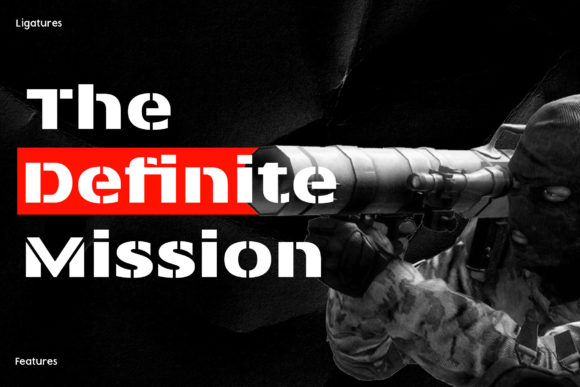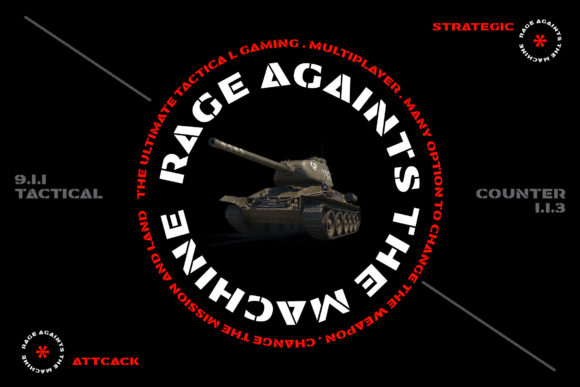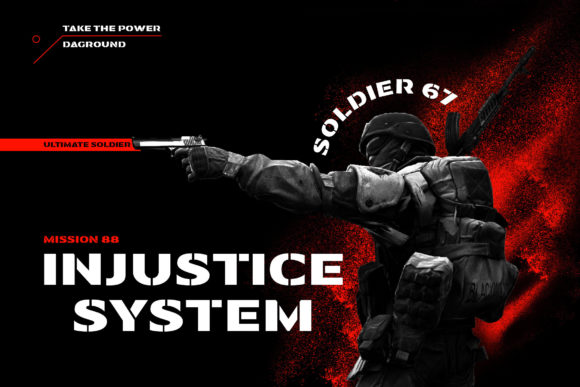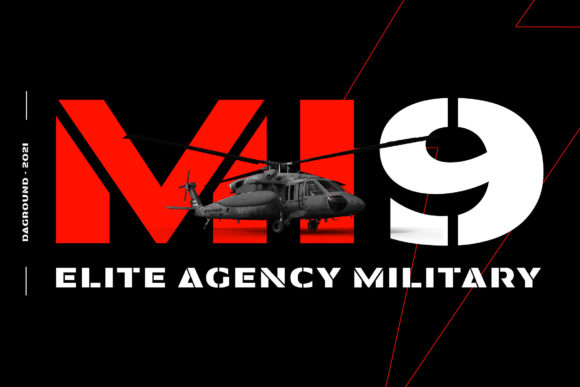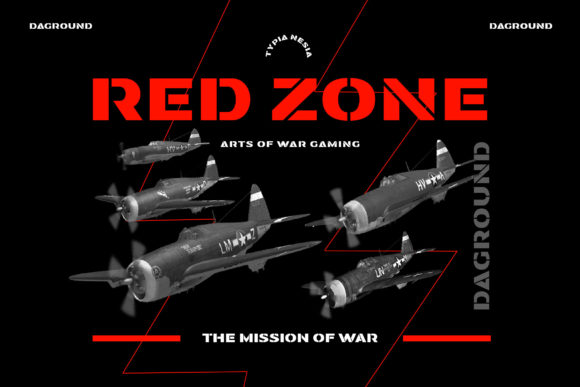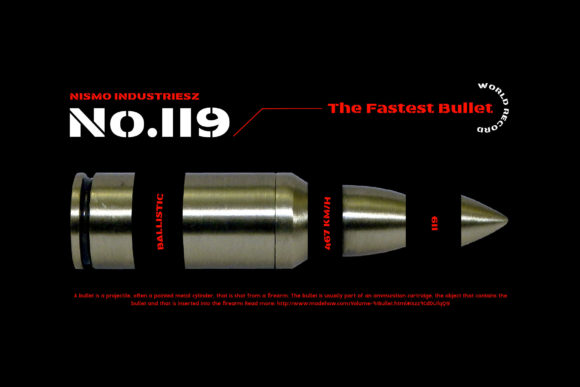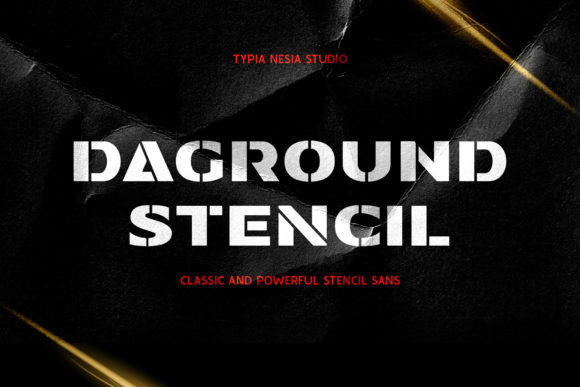
Discover the Ultimate Display Font: Daground
Are you on the hunt for a font that can elevate your designs to the next level? Look no further than Daground, a cool display font that’s perfect for a wide range of projects. From logo branding and editorial design to sport design, 80s retro design, and more, Daground is the ultimate addition to your font collection.
What Makes Daground So Special?
Daground is a versatile font that’s designed to make a statement. Its unique blend of modern and retro elements makes it perfect for designers who want to add a touch of nostalgia to their work. With Daground, you can create stunning designs that are sure to grab attention and leave a lasting impression.
So, what can you use Daground for? The possibilities are endless! Here are just a few ideas to get you started:
- Logo Branding: Use Daground to create a bold and eye-catching logo that’s sure to represent your brand.
- Editorial Design: Add a touch of sophistication to your editorial designs with Daground’s elegant and refined lines.
- Stationery Design: Create beautiful stationery designs that are sure to impress with Daground’s unique style.
- Sport Design: Use Daground to create bold and dynamic sport designs that are sure to get your audience pumped up.
- 80s Retro Design: Add a touch of nostalgia to your designs with Daground’s retro-inspired lines.
- E-Sport Game Industry: Use Daground to create bold and eye-catching designs that are sure to stand out in the e-sport game industry.
- Sports Racing: Create stunning sports racing designs that are sure to get your audience revved up.
- Supercar Brands: Use Daground to create sleek and sophisticated designs that are sure to represent your supercar brand.
- Music Posters: Add a touch of style to your music posters with Daground’s unique and eye-catching lines.
- Blog Design: Use Daground to create a bold and eye-catching blog design that’s sure to grab attention.
- Modern Advertising Design: Create stunning modern advertising designs that are sure to get your message across.
- Card Invitations: Use Daground to create beautiful and elegant card invitations that are sure to impress.
- Art Quotes: Add a touch of style to your art quotes with Daground’s unique and eye-catching lines.
- Home Decor: Use Daground to create beautiful and elegant home decor designs that are sure to add a touch of sophistication to any room.
- Book/Cover Titles: Create stunning book and cover titles that are sure to grab attention.
- Special Events: Use Daground to create bold and eye-catching designs for special events that are sure to leave a lasting impression.
Why Choose Daground?
So, why should you choose Daground for your next project? Here are just a few reasons:
- Unique Style: Daground has a unique style that’s sure to make your designs stand out.
- Versatility: Daground is perfect for a wide range of projects, from logo branding to sport design and more.
- Elegant Lines: Daground’s elegant lines are sure to add a touch of sophistication to any design.
- Easy to Use: Daground is easy to use and comes with a simple and intuitive design.
In conclusion, Daground is a cool display font that’s perfect for designers who want to add a touch of style and sophistication to their work. With its unique blend of modern and retro elements, Daground is sure to make your designs stand out. Whether you’re working on a logo branding project, editorial design, sport design, or more, Daground is the ultimate addition to your font collection.
Get Ready to Take Your Designs to the Next Level
So, what are you waiting for? Get ready to take your designs to the next level with Daground. Add it to your most creative ideas and notice how it makes them come alive! With Daground, you can create stunning designs that are sure to grab attention and leave a lasting impression.
Daground is the perfect font for designers who want to push the boundaries of creativity and style. Its unique style, versatility, and elegant lines make it the ultimate display font for any project. So, why settle for ordinary when you can have extraordinary? Choose Daground today and take your designs to new heights!